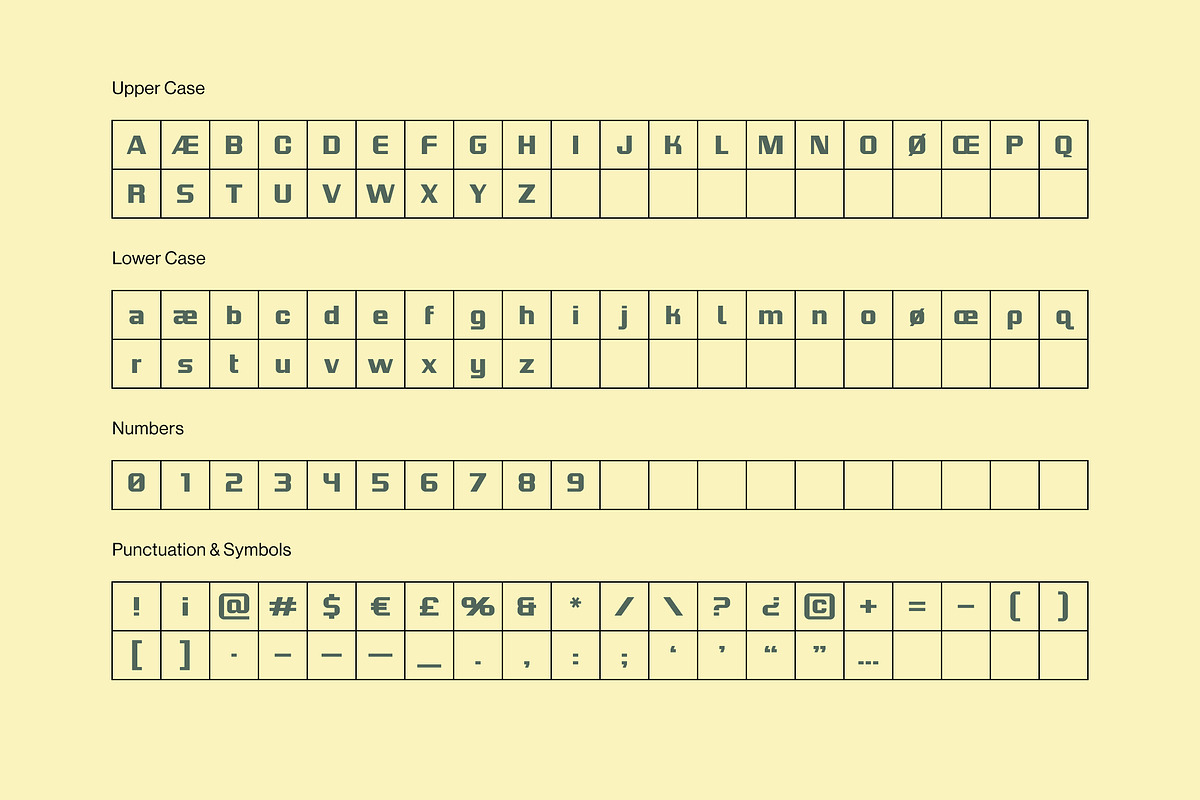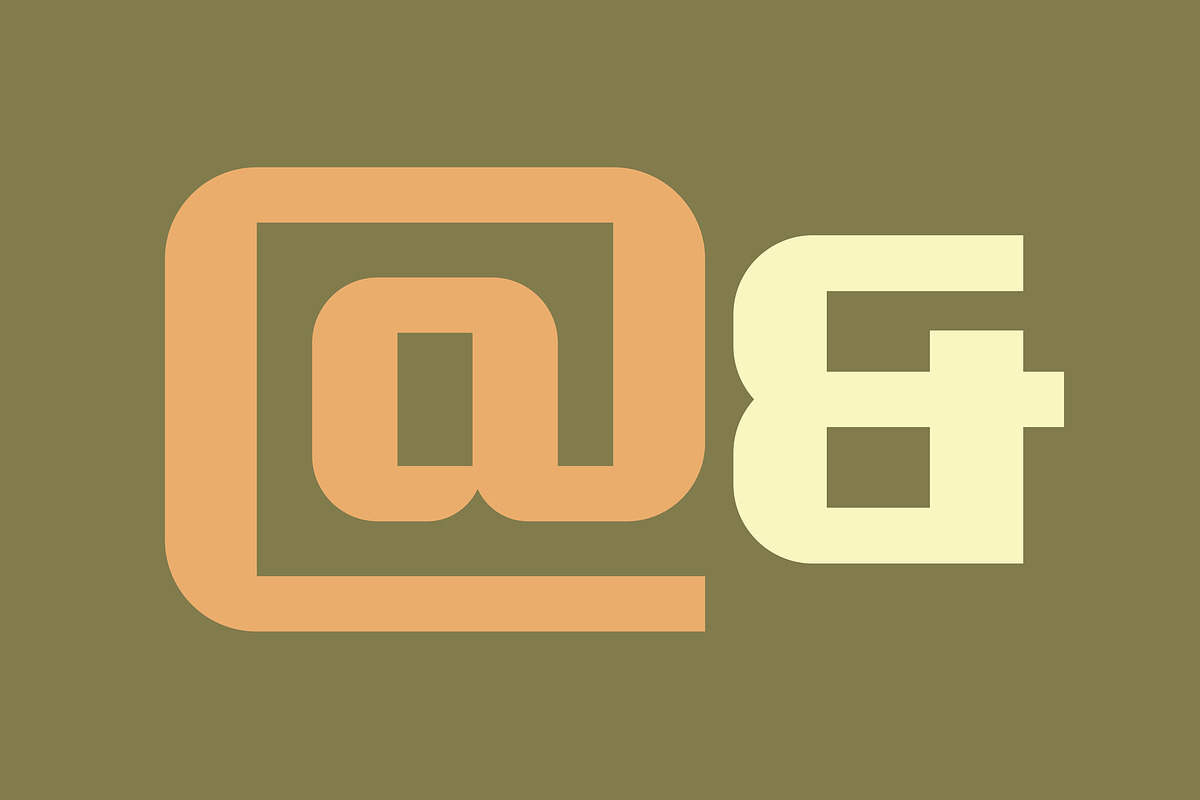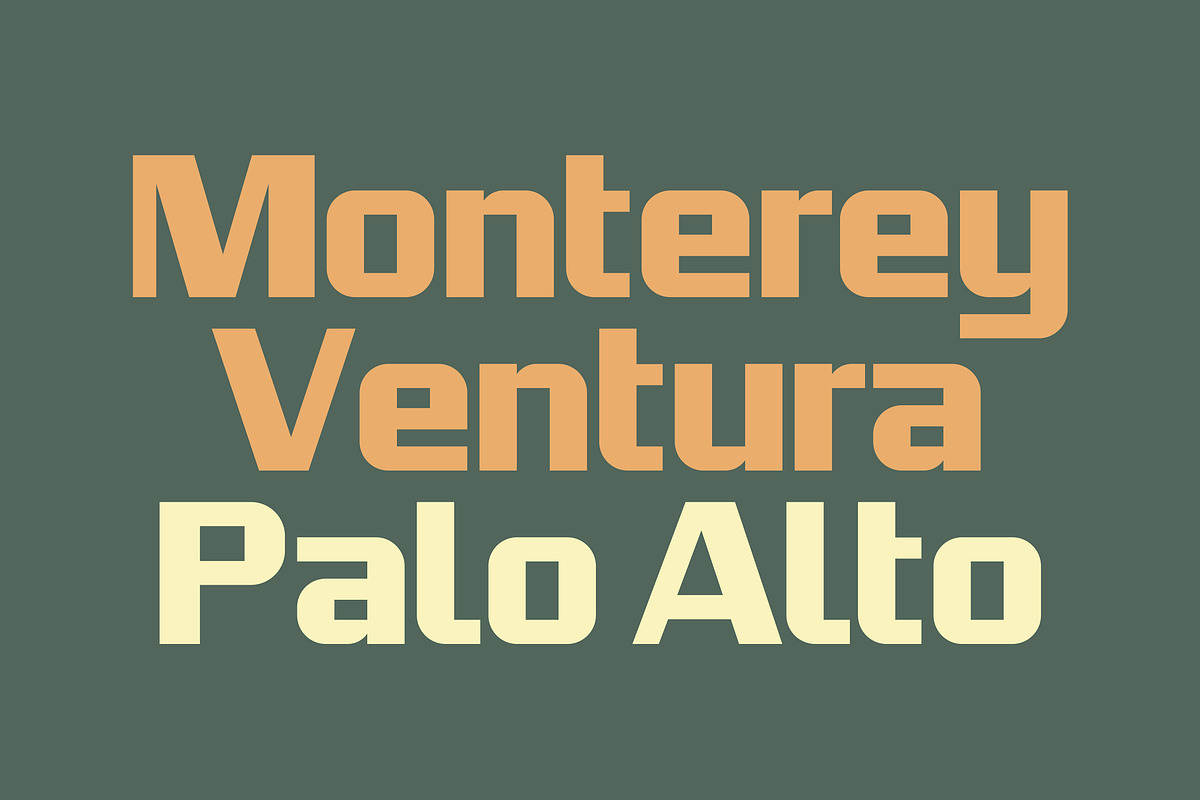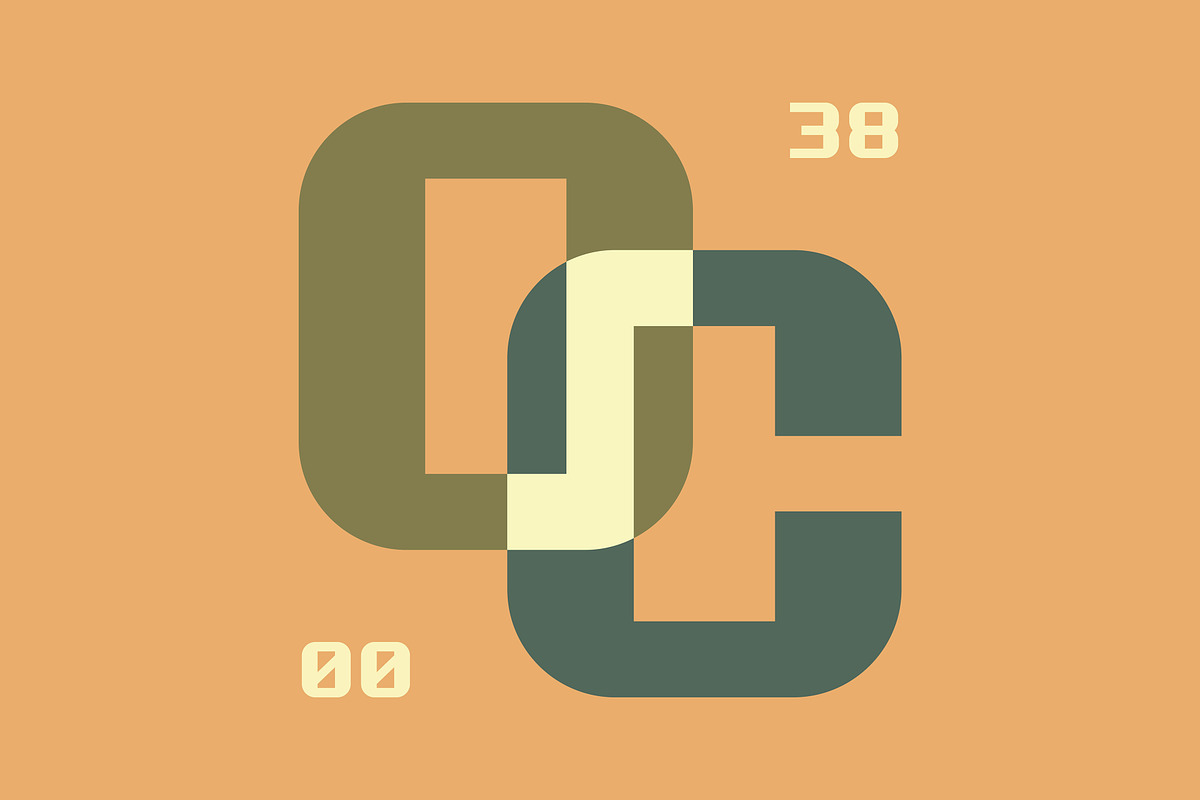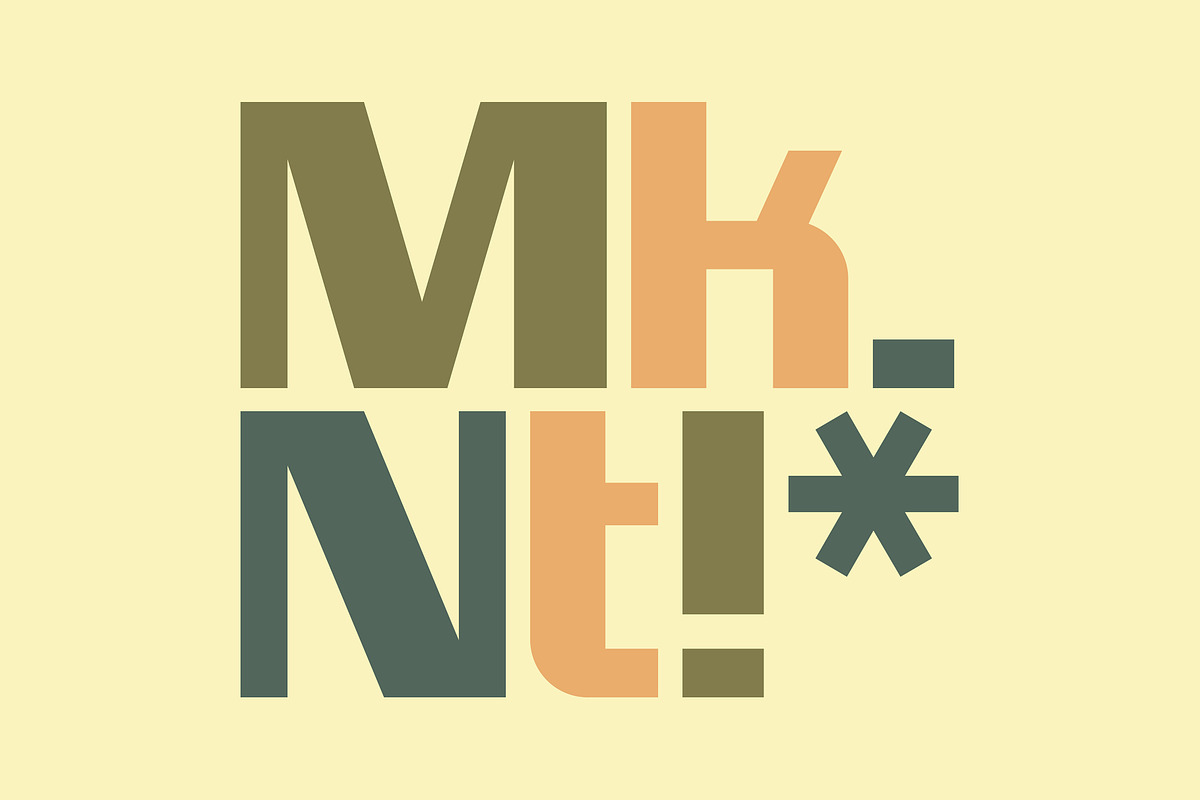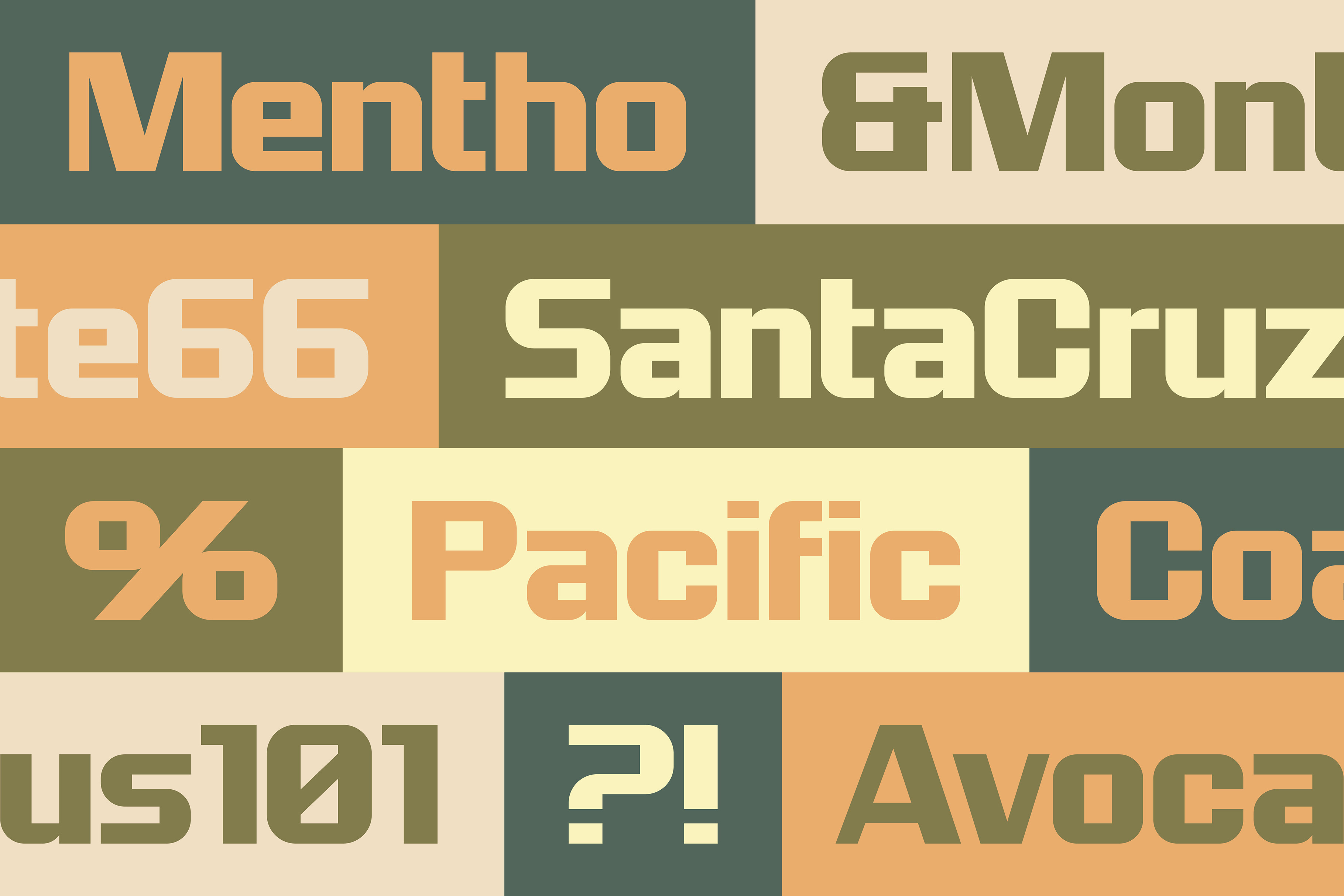
MENTHO Font
A functional, industrial-design-inspired font shaped by its boxy details, Mentho is a reliable display face made up of 104 glyphs including uppercase, lowercase, numbers, punctuation, and special characters.